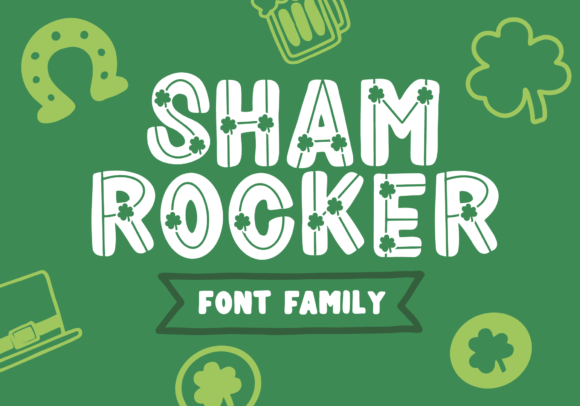
Introducing Shamrocker, the perfect hand-lettered font family for all your St. Patrick's Day designs! Created by The Pretty Letters, this fun and festive display font is a must-have for anyone looking to add some extra character to their designs.
With Shamrocker, you'll get not only the regular version but also the clean and lines versions, allowing you to layer and customize to your heart's content. And that's not all – the font family also includes a variety of adorable catchwords, banners, and doodles that are sure to take your designs to the next level.
Whether you're creating St. Patty's Day decorations, t-shirts, mugs, party banners, school activity sheets, or print-on-demand products, Shamrocker has got you covered. The font is incredibly versatile and can be used in a variety of projects.
But what sets Shamrocker apart is its unique and playful style, which is sure to captivate anyone who sees it. The hand-lettered design adds an authentic, personal touch to your projects, making them stand out from the crowd.